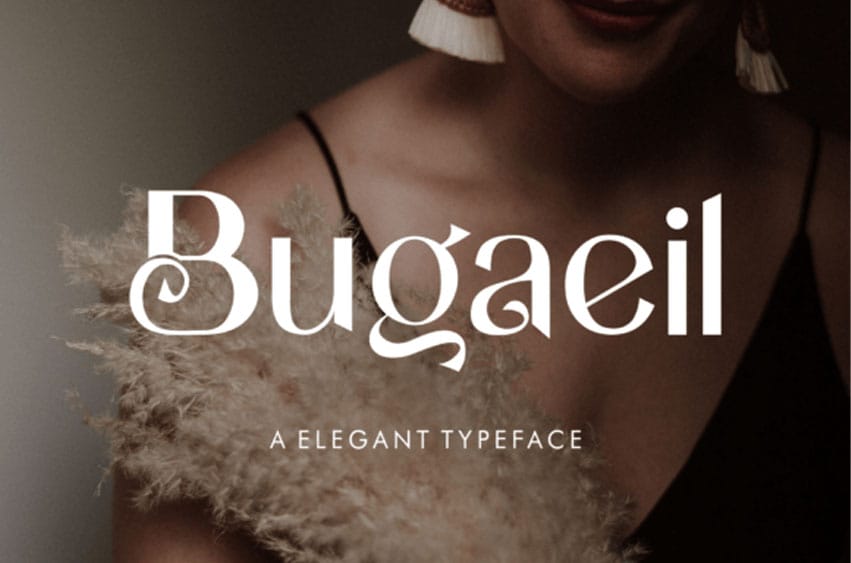
Bugaeil Font is an elegant Typeface Font will be perfect for many projects: fashion, magazines, logos, branding, photography, invitations, wedding invitations, quotes, blog headers, posters, advertisements, postcards, books, websites, etc.
Perfectly crafted to meet all your design needs.